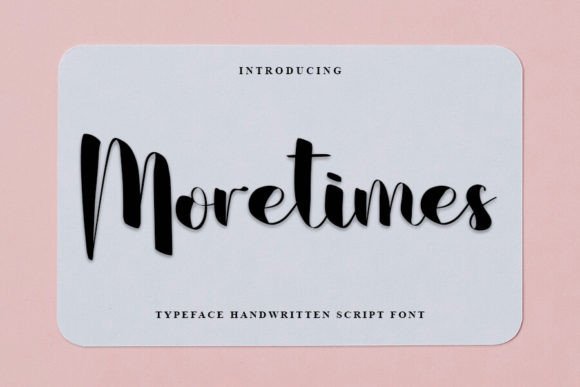
Introducing Moretimes Font, the epitome of elegance and sophistication, meticulously crafted to elevate your designs to new heights. Embark on a journey of creativity with this script font, designed to capture the timeless essence of classic calligraphy.
Moretimes Font is not merely a font; it's an artistic expression that transforms words into captivating visuals. Elevate your projects with its innate ability to convey luxury, grace, and charm. Allow your designs to exude an air of timeless elegance that will leave a lasting impression.
Crafted with the utmost precision, Moretimes Font strikes a delicate balance between thin and thick strokes. This harmonious contrast adds visual intrigue and depth to your creations. It's the perfect choice for logos, branding, invitations, wedding stationery, and any project where a touch of sophistication is desired.
Moretimes Font goes beyond mere aesthetics; it possesses an inherent versatility that adapts seamlessly to any creative endeavor. Unleash your imagination and explore its potential in crafting stunning website designs, eye-catching advertisements, and captivating social media posts.
With Moretimes Font at your fingertips, you gain access to a world of creative possibilities. Its contemporary atmosphere blends effortlessly with a classic foundation, ensuring that your designs remain relevant and timeless. Experience the transformative power of Moretimes Font and unlock the potential for truly remarkable creations.
Don't settle for ordinary fonts that fail to leave a lasting impression. Invest in Moretimes Font and elevate your designs to new heights of sophistication and beauty. Make a statement that resonates with your audience and establish a brand identity that exudes luxury and elegance.